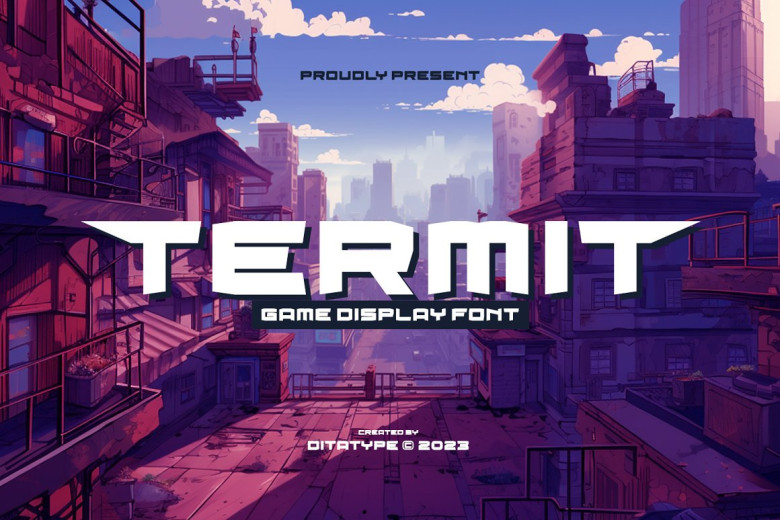
Termit Font
Termit font is an eye-catching Display Font designed with a gaming theme. Featuring large letters with relatively heavy weight and sharp corners to make an impactful statement. It boasts bold and striking letterforms which create a bold statement.
Termit Font’s rectangular form with sharp corners conveys a sense of stability and structure, while its clean lines and defined angles give it a strong impactful presence. Each character shares identical height, width and depth dimensions for an immersive visual experience with low contrast style giving an understated appearance to this font.
Font is simplified through minimal stroke width variations, which focuses the design to become the main focus. Here, content remains at the forefront while visual impact remains strong and visual appeal remains at its highest levels – you’re free to enjoy all features available here!
Termit Display Font